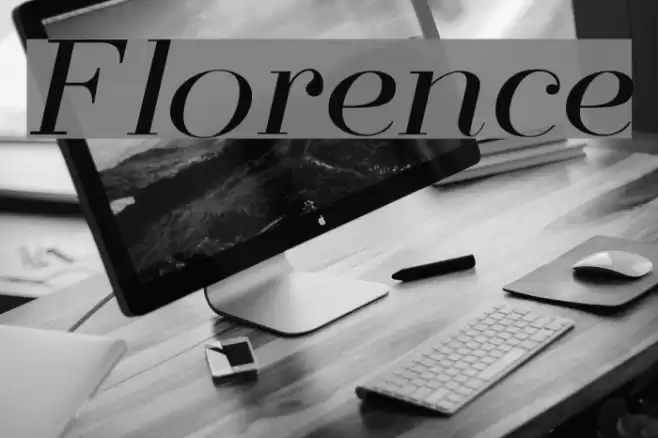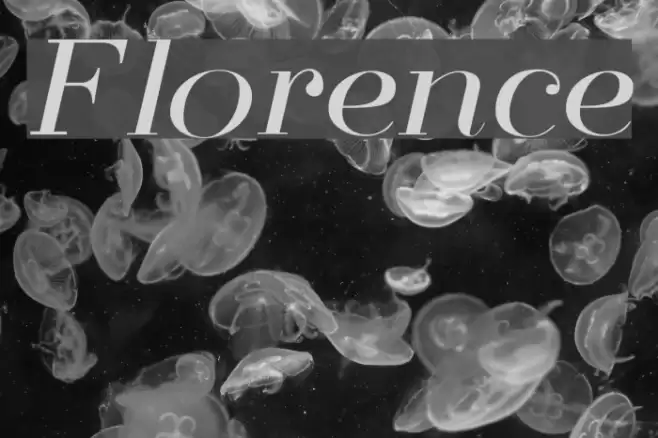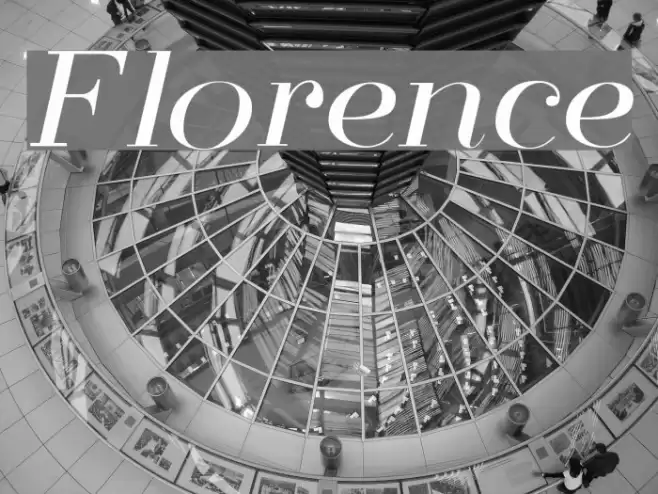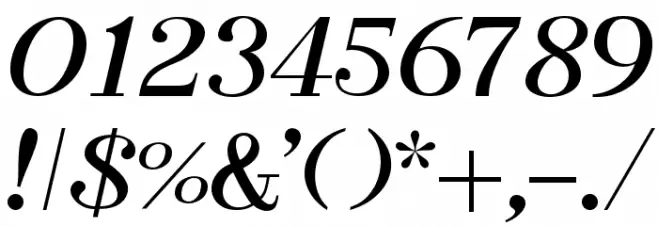
Florence Font
Florence Description
This elegant serif font features a sophisticated and classic design with a high contrast between thick and thin strokes. The letters are slightly italicized, adding a graceful and flowing appearance. The serifs are pronounced and sharp, giving the font a refined and traditional look. The uppercase letters are tall and commanding, while the lowercase letters maintain a consistent style that complements the overall aesthetic. The numerals are clear and well-defined, making them suitable for both formal and decorative purposes. Special characters are designed with the same attention to detail, ensuring a cohesive and polished appearance across all glyphs.
A classic serif font with high contrast and elegant italic styling from Serif fonts.
- Proposed Projects: Ideal for wedding invitations, luxury branding, editorial design, and elegant packaging.
- Overall Style: Classic
- Use Case: Headlines, Logos, Invitations